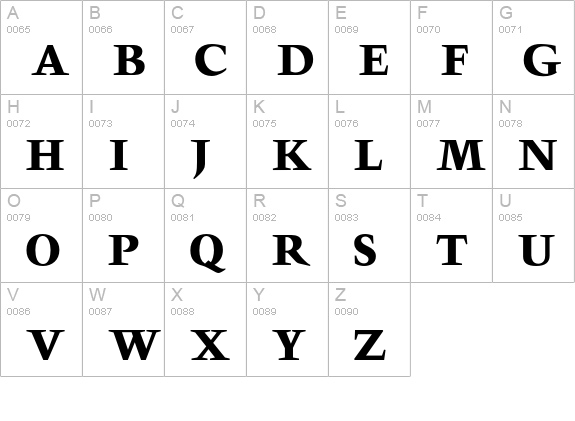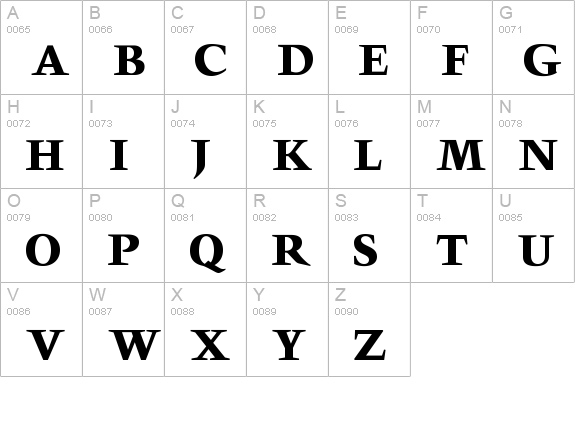
TriumphBold Font Details
TriumphBold font is a stunning display typeface that commands attention with its bold and powerful design. With its robust and confident letterforms, this font exudes a sense of strength and authority, making it perfect for headlines, logos, and other impactful design projects. The TriumphBold font features a unique blend of thick and thin strokes, creating a perfect balance between elegance and impact. Its clean and distinct lines bring a modern and sophisticated touch to any design, while still maintaining a sense of readability and clarity. But what sets TriumphBold font apart is not just its striking design, but also its accessibility. This incredible font is available for free download at FontsMarket.com, allowing designers and creatives to unleash their creativity without any financial constraints. With just a few clicks, this powerful font can be yours, ready to elevate your designs to new heights. Whether you're working on a branding project, creating eye-catching posters, or designing a powerful website, TriumphBold font will be your go-to choice. Its versatility allows it to adapt to any design concept, be it bold and edgy or refined and elegant. So don't miss out on this incredible opportunity to add TriumphBold font to your design arsenal. Head over to FontsMarket.com today and download this magnificent font for free. Unleash your creativity and make a bold statement with TriumphBold font, the perfect blend of power and sophistication.